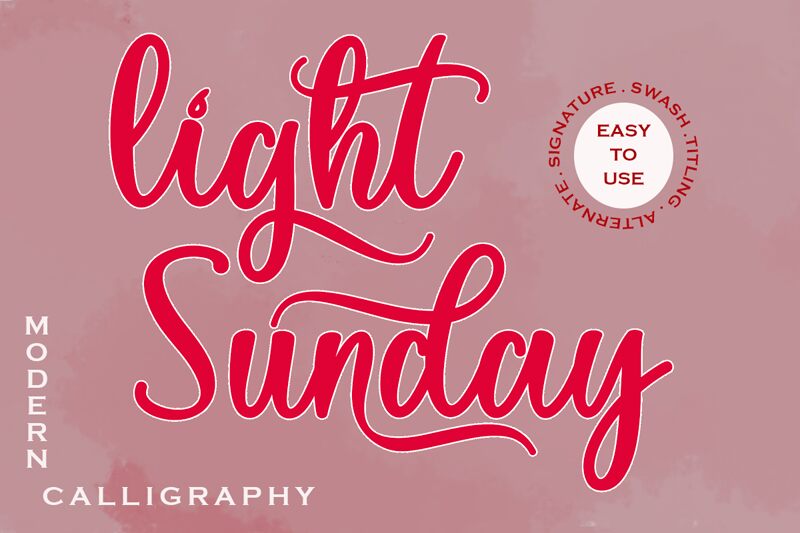
Light Sunday
Light Sunday font a lovely handwritten font designed by Yoga Letter.
It is perfect for logo design, branding, banners, posters, prints, weddings, invitations, birthdays, boutiques, promotions, social media, quotes.